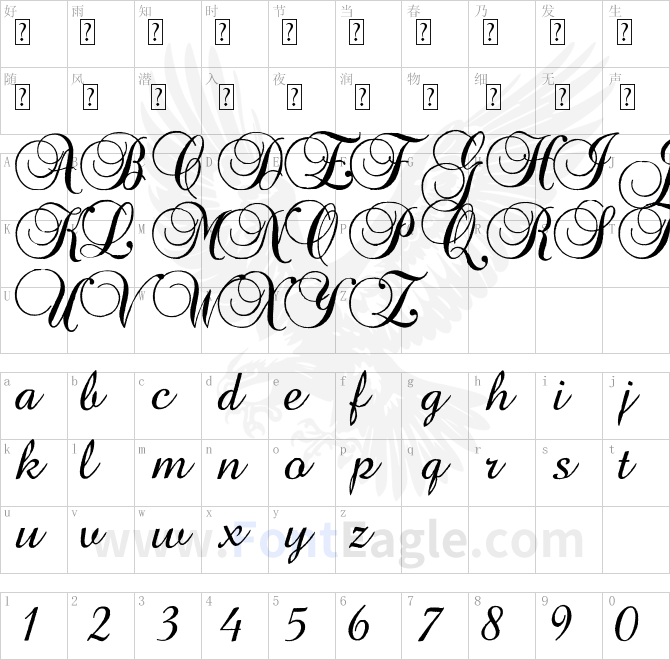
- Font name:Baroque Antique Script
- Font Full Name:Baroque Antique Script
Baroque-Antique-Script is a great font, widely used in graphic design, single-page menu design, poster design and other fields, and is deeply loved by designers.Baroque-Antique-Script download.